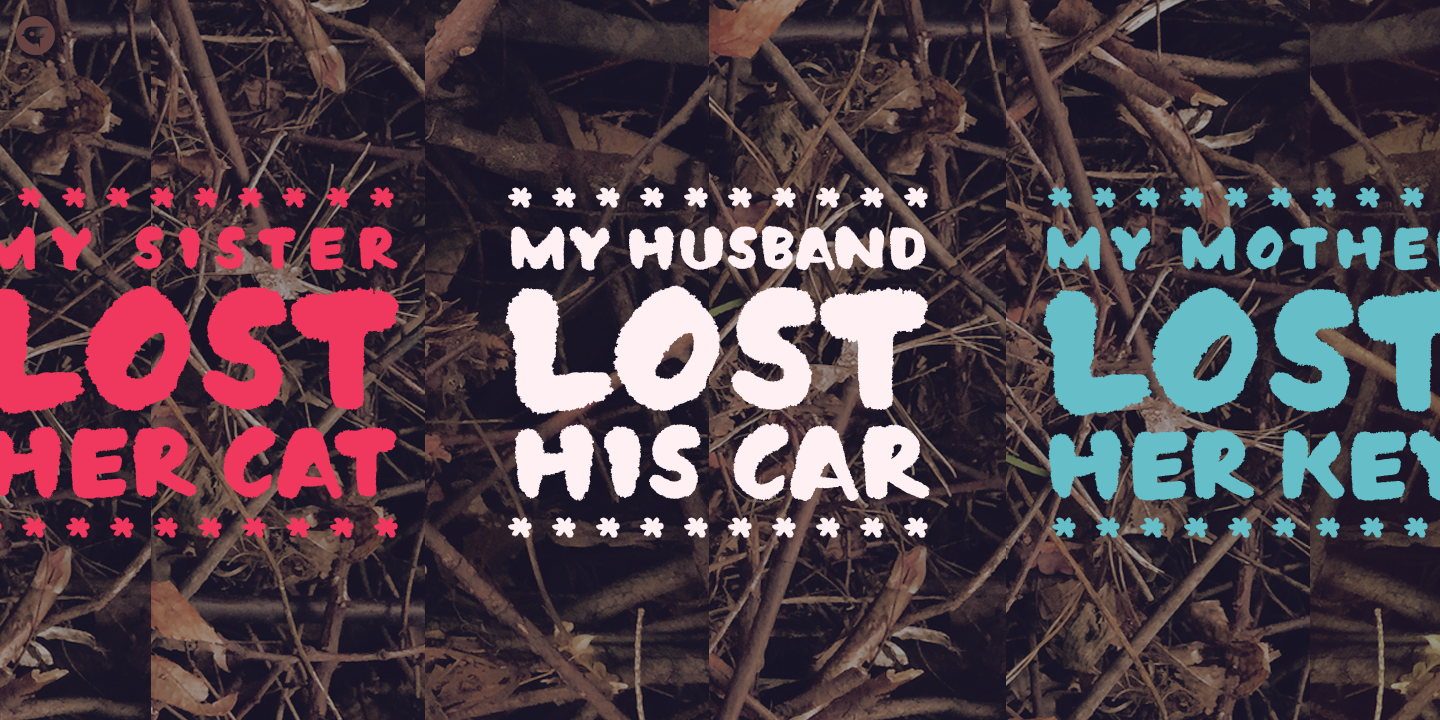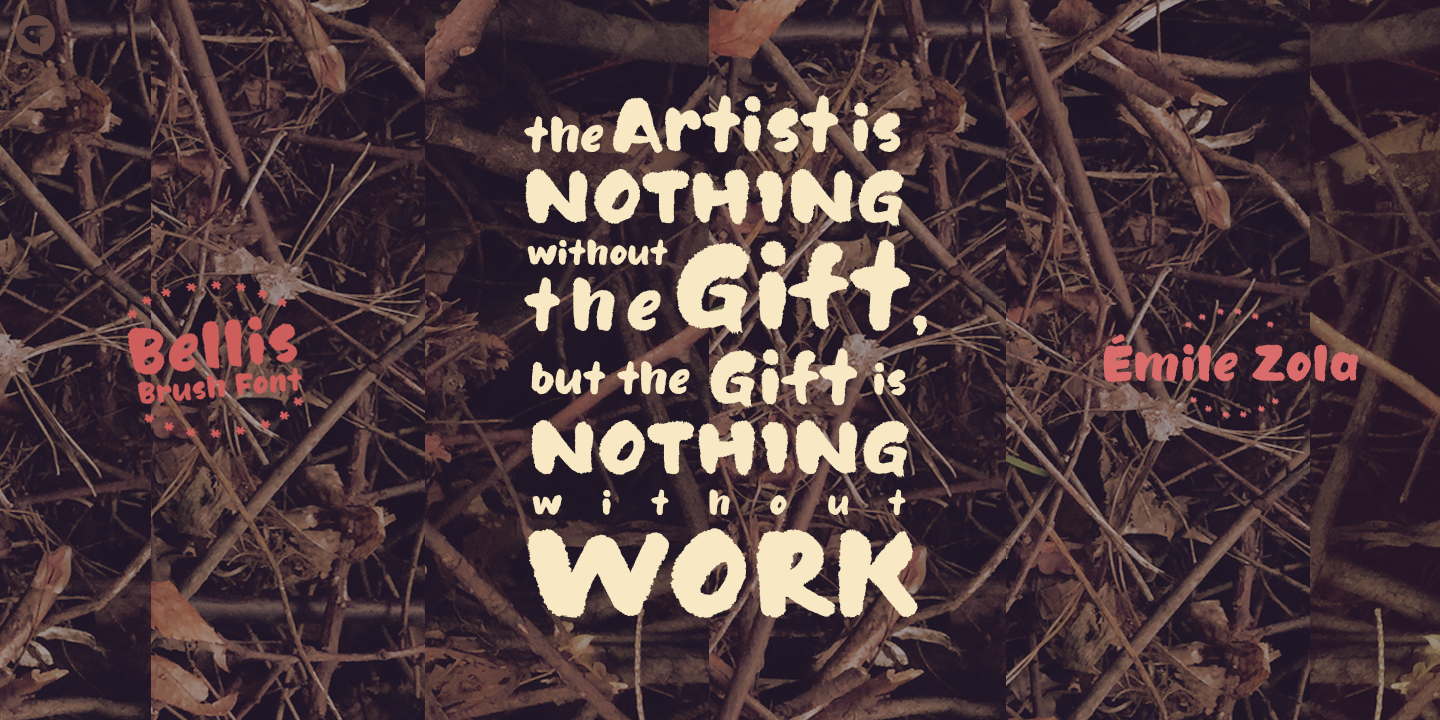
Bellis is a hand painted brush font. Painted on absorbent paper with a chinese brush to make the ink spreading texture. The original texture was a little bit messy but we translated into a more clean textured font. Bellis is a very easy to read brush font and it can be used for posters, magazines or graphic artworks.